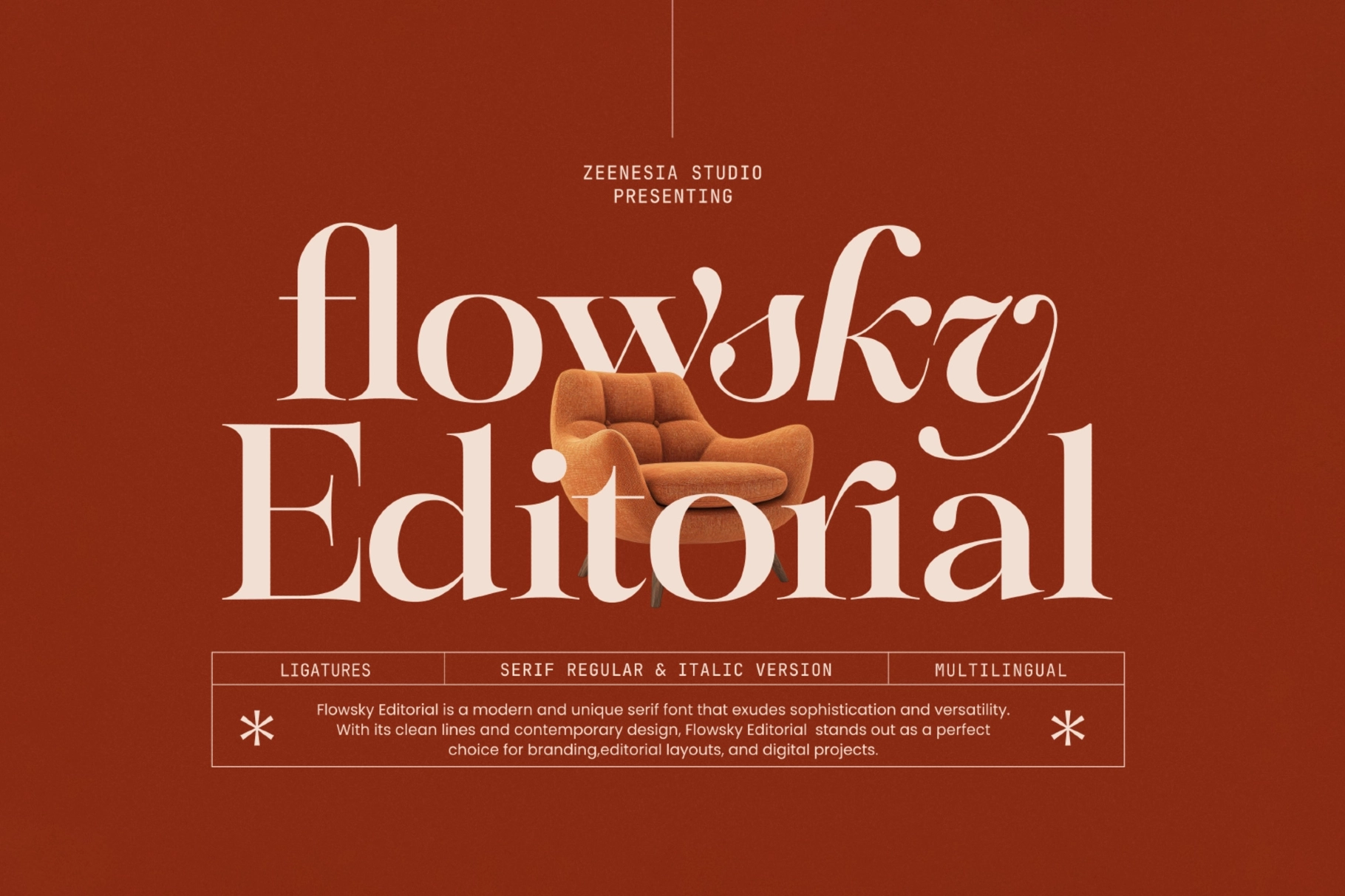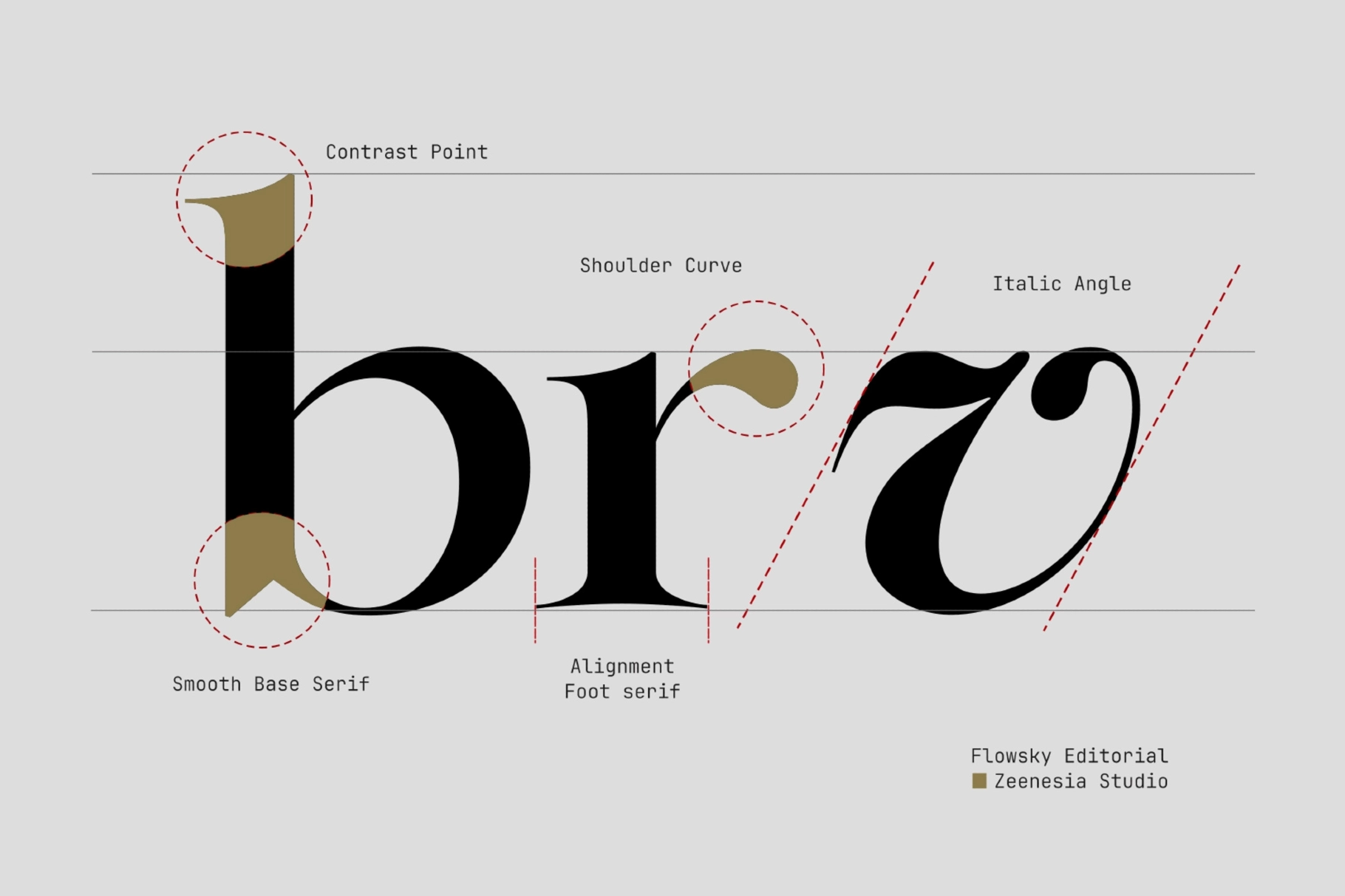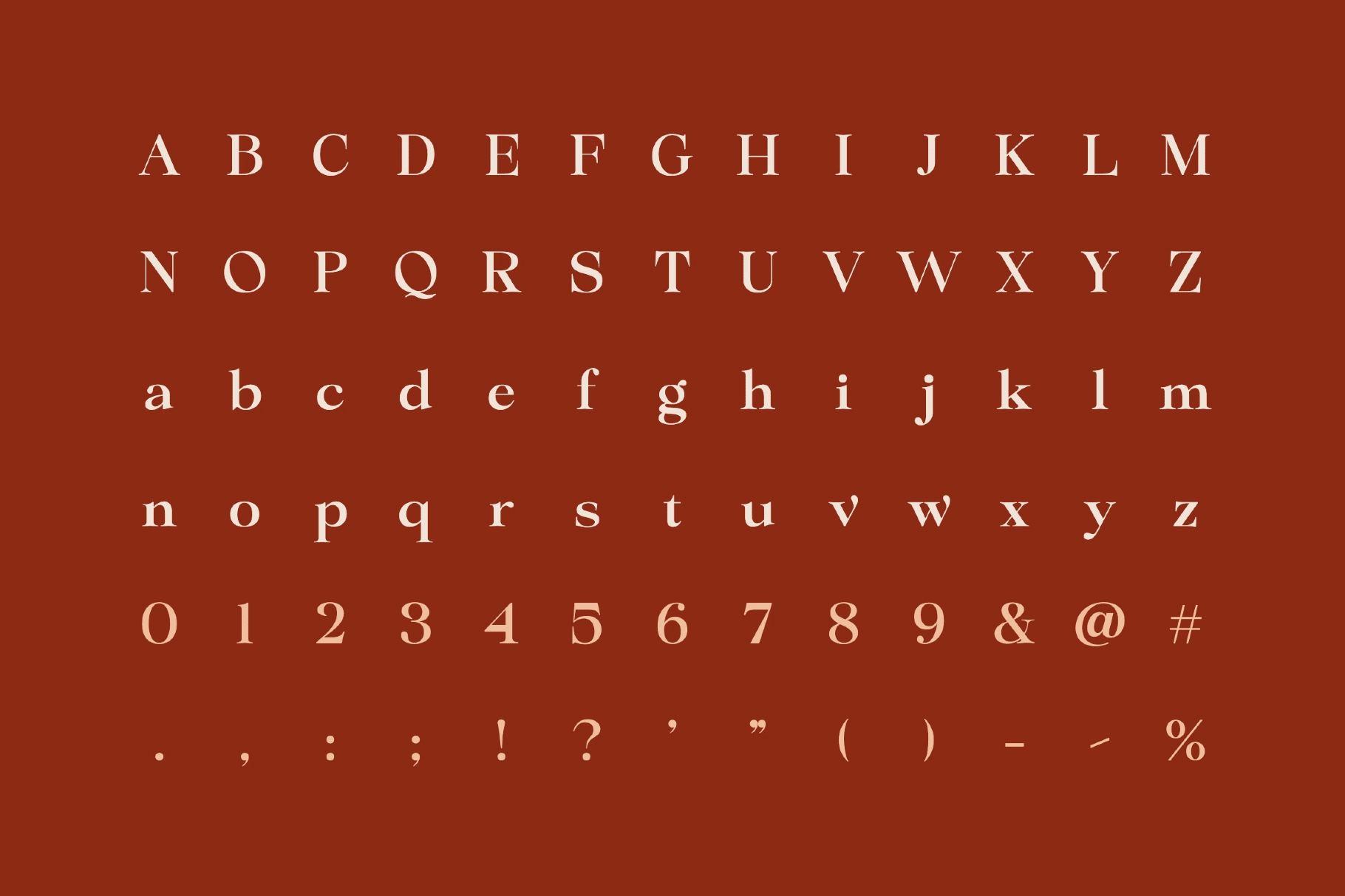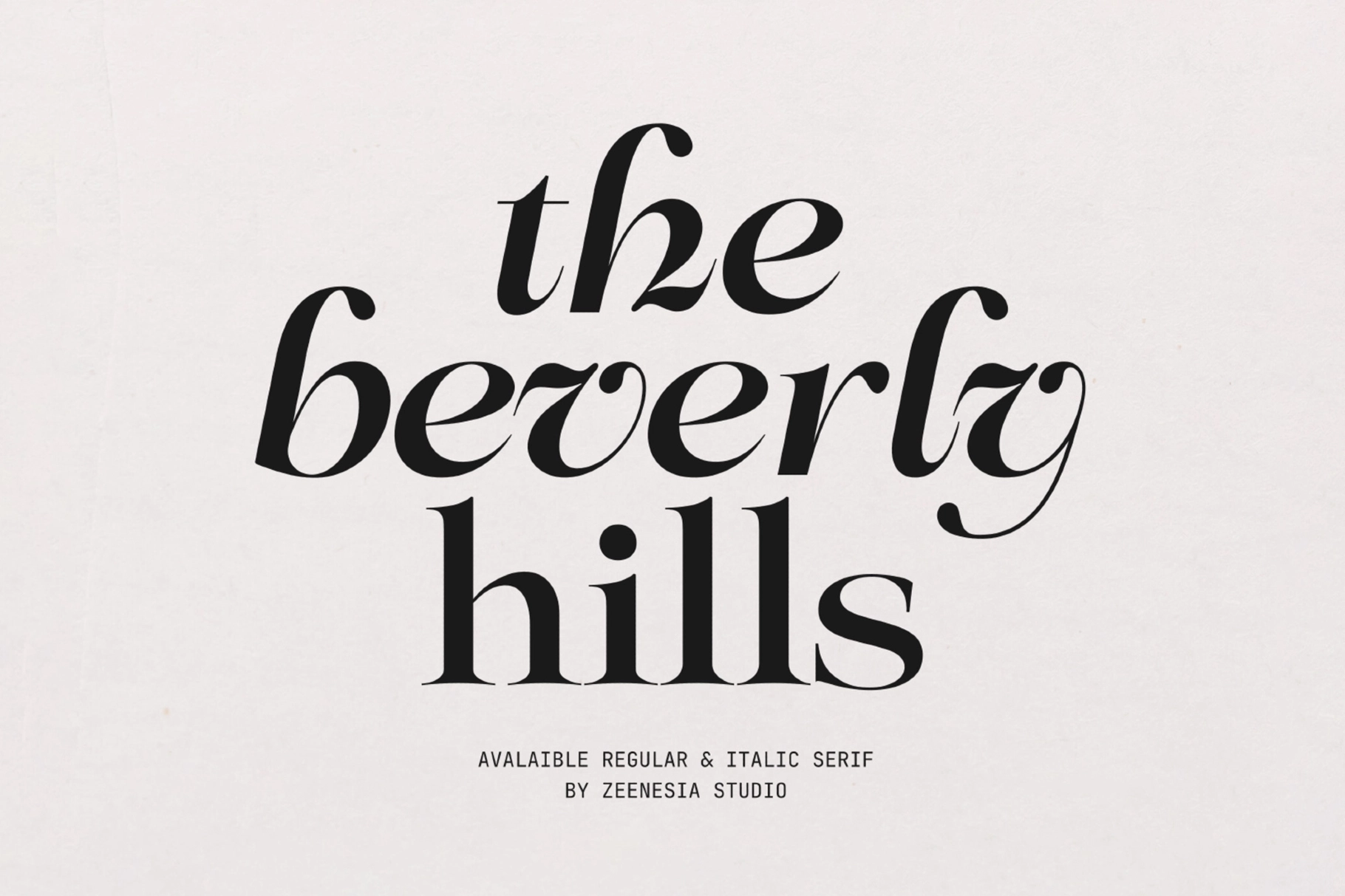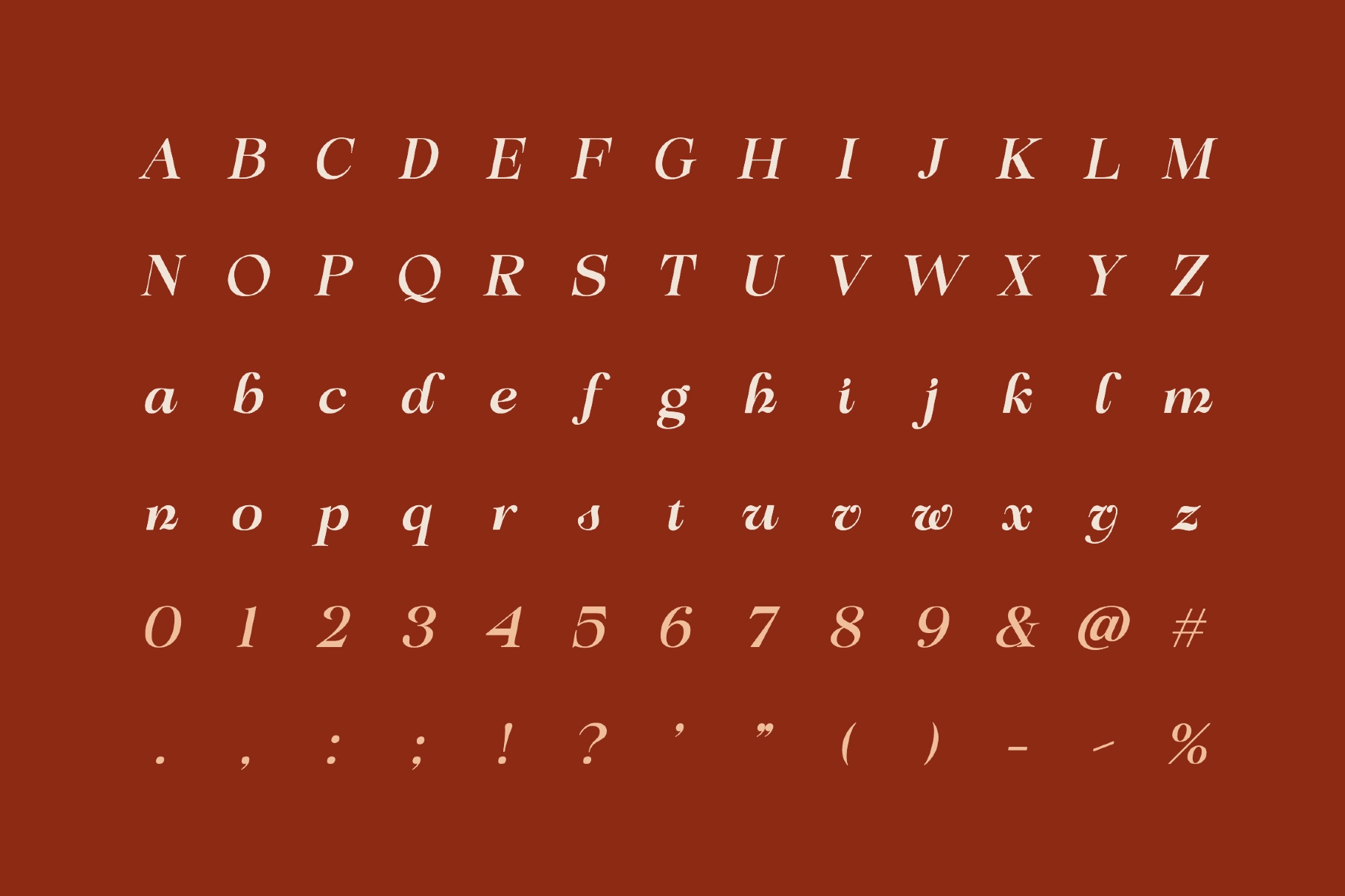
Flowsky Editorial – Elegant Serif Font
Flowsky Editorial cuts a classic high-contrast serif silhouette — thick vertical stems against hairline thins, with bracketed serifs and a rounded shoulder curve on the lowercase r and other curved strokes. It lands as an elegant serif font built for the kind of headline that needs weight and a bit of old-world polish.
The italic breaks from that formality into a looser, almost calligraphic slant, with connecting ligatures on pairs like th and rl that read closer to fine penmanship than a mechanical italic. Use it for magazine headlines, fashion branding, logotypes, and packaging copy.
• 2 styles: Regular, Italic;
• Uppercase & lowercase;
• Numerals, punctuation & symbols;
• Ligatures, fractions & ordinals;